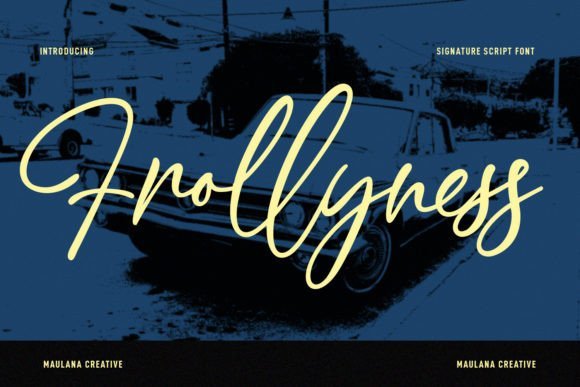
Bring Your Creative Ideas to Life with Frollyness Font
Do you remember that moment when a spark of creativity hit you, and you knew exactly what you wanted to create? For some, it’s a burst of inspiration while browsing Pinterest, while others get their ideas from a stroll through a local art fair. Whatever sparks your creativity, we’re here to help you bring it to life with the perfect tools – like the Frollyness Font.
This beautiful casual signature script font is designed to add a personal touch to your creative projects. Whether you’re designing Instagram posts, crafting calligraphy scripts for DIY projects, or creating personalized gifts, the Frollyness Font is sure to elevate your ideas and turn them into stunning pieces of art. As a valuable resource for designers, this font offers endless possibilities for self-expression and creativity.
Frollyness Font Key Features
- Font Family: Frollyness Font
- Unique Characteristics: Includes 40 hand-drawn icons and 20 ligatures for a unique, whimsical touch
Frollyness Font Review
First impressions are everything, and Frollyness Font definitely caught my attention with its whimsical charm ✨. The unique blend of handwritten and modern elements makes it a standout choice for creative projects. The font is particularly well-suited for social media graphics, logos, and headings, where a touch of personality is needed.
One of the strengths of Frollyness Font is its versatility ✨. It comes in a range of weights and styles, making it easy to adapt to different design contexts. The font also has excellent legibility, even at small sizes, which is a must-have for any font.
- ⚠️ Limited support for languages other than English and a few European languages.
- ⚠️ Some users may find the font’s playfulness overwhelming, which could be a drawback for more conservative design projects.
Overall, I’d say Frollyness Font is a great choice for designers who want to add a dash of creativity to their projects. While it may not be perfect for every use case, its unique charm and versatility make it a solid addition to any designer’s toolkit.
Tips for Getting the Most Out of Frollyness Font
Experiment with different font sizes, styles, and combinations to achieve unique and eye-catching effects.
Use Frollyness Font to add a playful touch to titles, headings, and body text.
Use Frollyness Font for:
Designing children’s books and educational materials
Creating playful and engaging social media graphics
Adding a whimsical touch to branding and marketing materials
Alternatives to “Frollyness Font” for Designers
Crimson Text is a classic serif font perfect for body text in books, articles, and other long-form content. It’s elegant, readable, and suitable for formal designs. When to use: formal documents, books, and magazines.
Comparison: While Frollyness Font has a playful feel, Crimson Text is more subdued and sophisticated. Crimson Text is ideal for situations where you want to convey professionalism and elegance, whereas Frollyness Font is better suited for creative and whimsical designs.
Lato is a modern sans-serif font that’s highly legible and versatile. It’s perfect for headings, titles, and short paragraphs in digital products, websites, and apps. When to use: digital products, websites, and mobile apps.
Comparison: While Frollyness Font has a distinctive feel, Lato is more neutral and adaptable. Lato is ideal for situations where you want a clean and modern aesthetic, whereas Frollyness Font is better suited for creative and playful designs.
Playfair Display is a luxurious script font perfect for adding a touch of elegance and sophistication to your designs. It’s ideal for headings, titles, and short paragraphs in high-end products, luxury brands, and special occasions. When to use: luxury brands, special occasions, and high-end products.
Comparison: While Frollyness Font has a whimsical feel, Playfair Display is more refined and sophisticated. Playfair Display is ideal for situations where you want to convey luxury and exclusivity, whereas Frollyness Font is better suited for creative and playful designs.